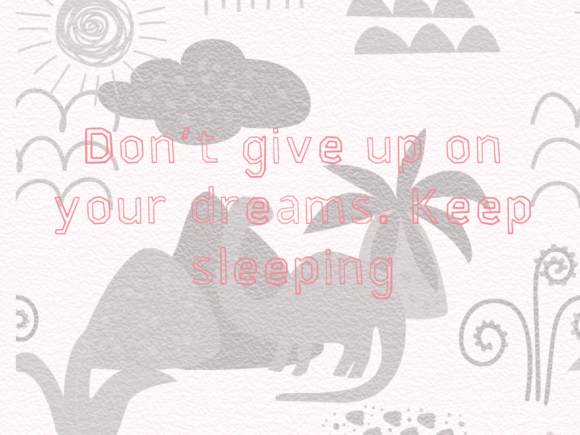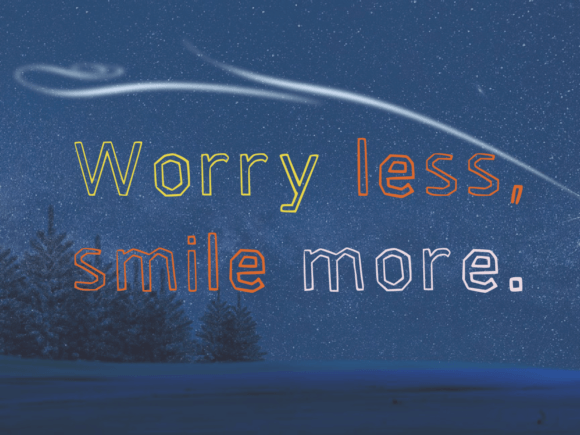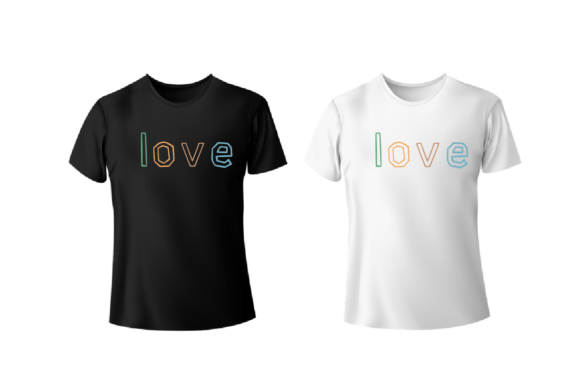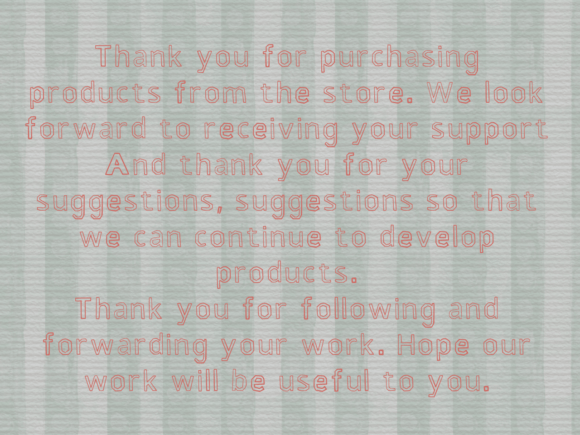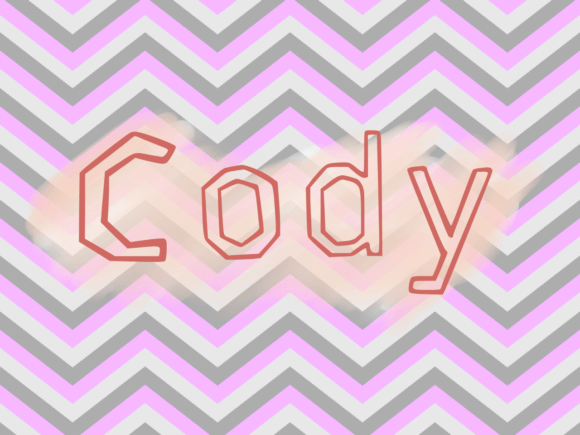
Cody Font: Elevate Your Designs with Unique Typography
Are you tired of using the same old fonts in your designs? Look no further than Cody Font, a versatile and stylish font that can add a touch of personality to your projects. In this article, we’ll explore the world of Cody Font and how you can use it to take your designs to the next level.
What is Cody Font?
Cody Font is a beautifully designed font that is perfect for a variety of creative projects. Whether you’re designing greeting cards, wedding cards, or social media graphics, Cody Font is a great choice. Its unique characteristics and stylish design make it stand out from more traditional fonts, giving your designs a fresh and modern look.
Key Features of Cody Font
- Unique Design: Cody Font has a distinctive design that sets it apart from other fonts. Its elegant lines and curves make it perfect for designs that require a touch of sophistication.
- Versatile: Cody Font is versatile and can be used in a variety of projects, from digital designs to print materials.
- Customizable: With Cody Font, you can customize your designs to fit your needs. Experiment with different colors, sizes, and styles to create a unique look.
How to Use Cody Font in Your Designs
Using Cody Font in your designs is easy. Here are a few tips to get you started:
- Pair it with Other Fonts: Cody Font pairs well with other fonts, so don’t be afraid to experiment with different combinations.
- Experiment with Colors: Try out different colors to see what works best with Cody Font. You can use bright and bold colors or more muted tones, depending on your design.
- Play with Size: Cody Font looks great in a variety of sizes, from small and delicate to large and bold.
Inspiration for Your Designs
Need some inspiration for your designs? Here are a few ideas to get you started:
- Greeting Cards: Use Cody Font to create beautiful and unique greeting cards for special occasions.
- Wedding Cards: Cody Font is perfect for wedding cards and other wedding stationery.
- Social Media Graphics: Use Cody Font to create eye-catching social media graphics that will help your posts stand out.
| Author | Pukka De |
Cody Font is a versatile and stylish font that can add a touch of personality to your designs. With its unique characteristics and easy-to-use design, it’s perfect for a variety of creative projects. We hope you’ll take advantage of Cody Font and use it to create something amazing. Thanks for your support, and we look forward to seeing what you create!